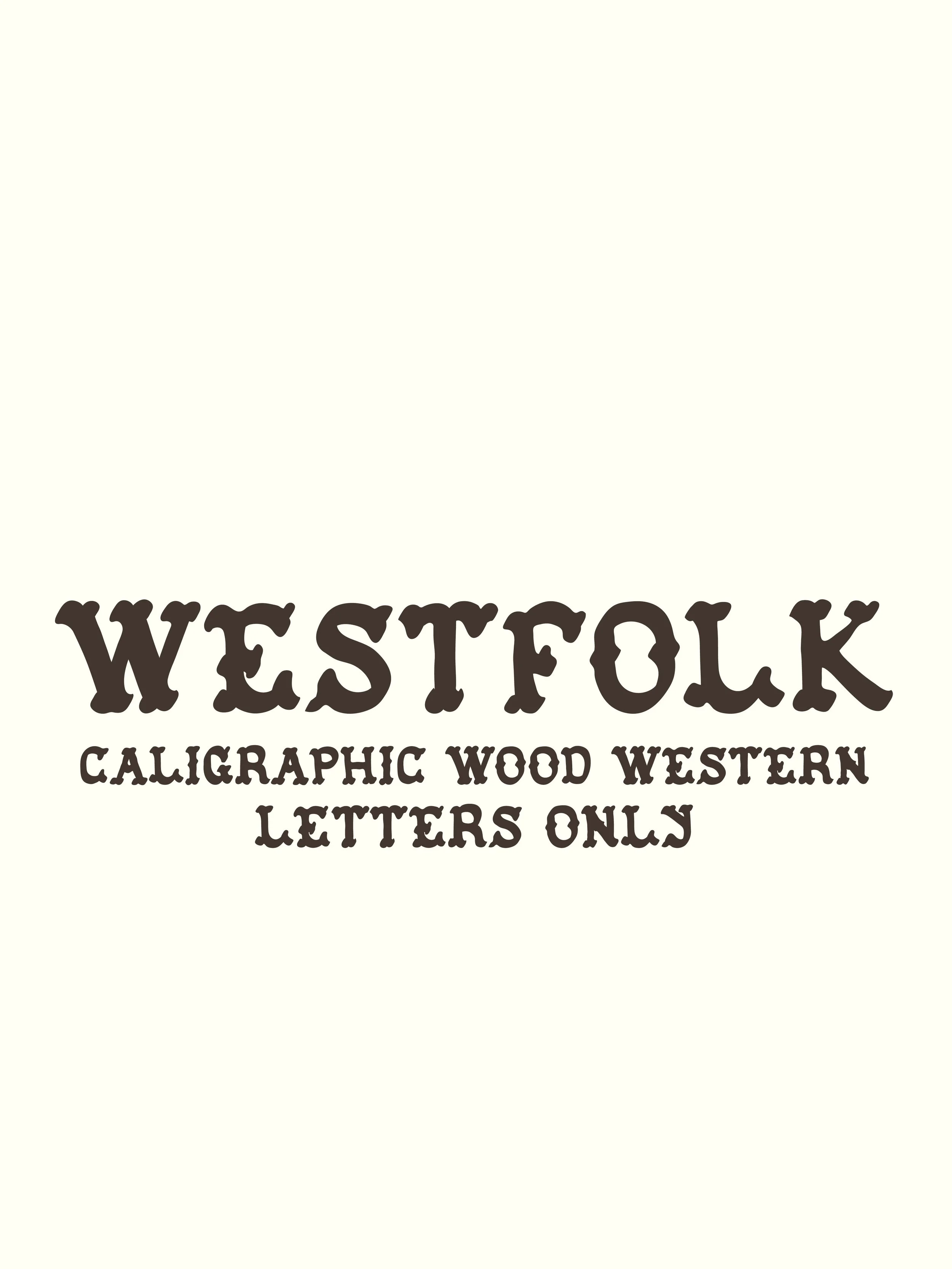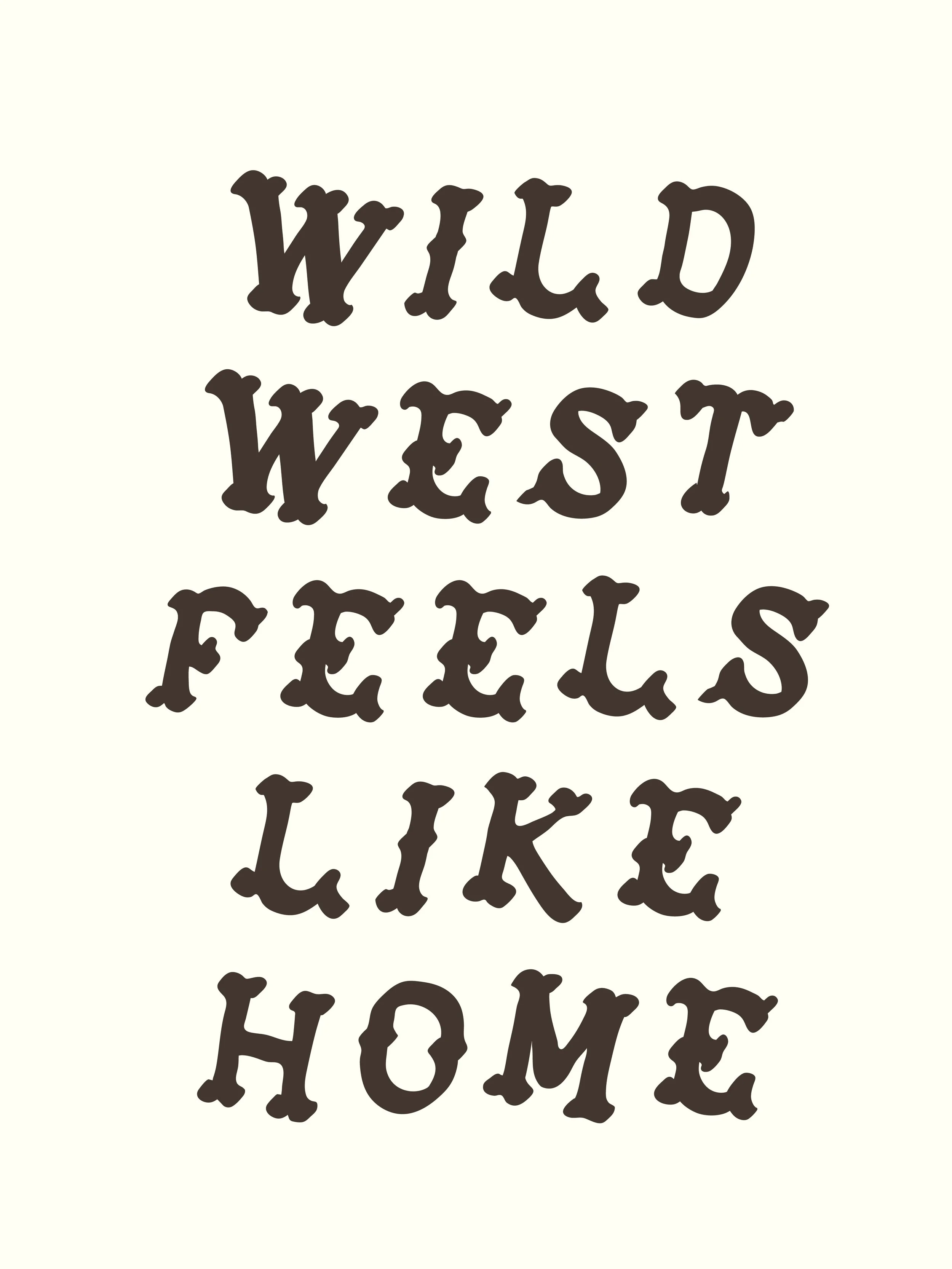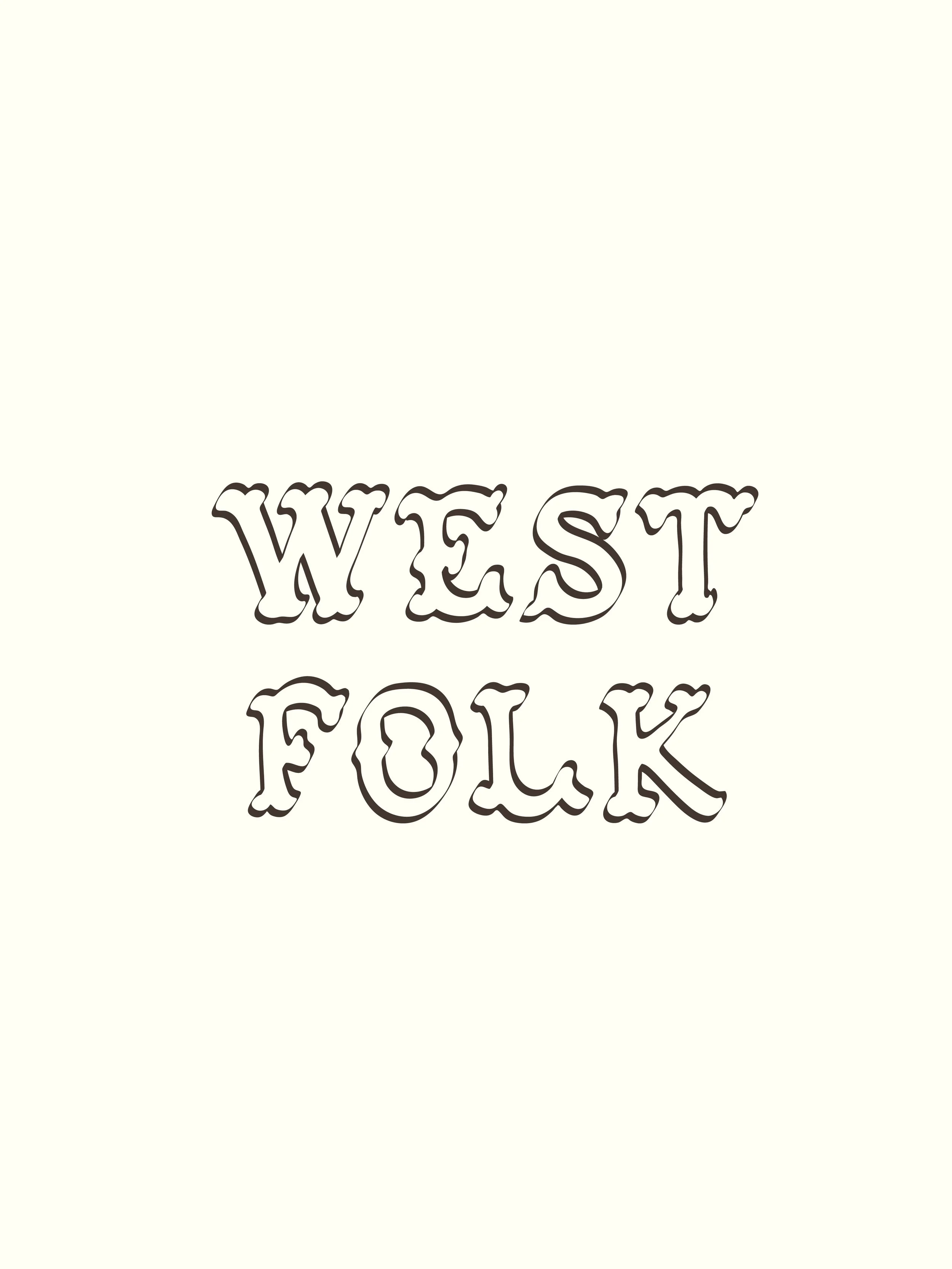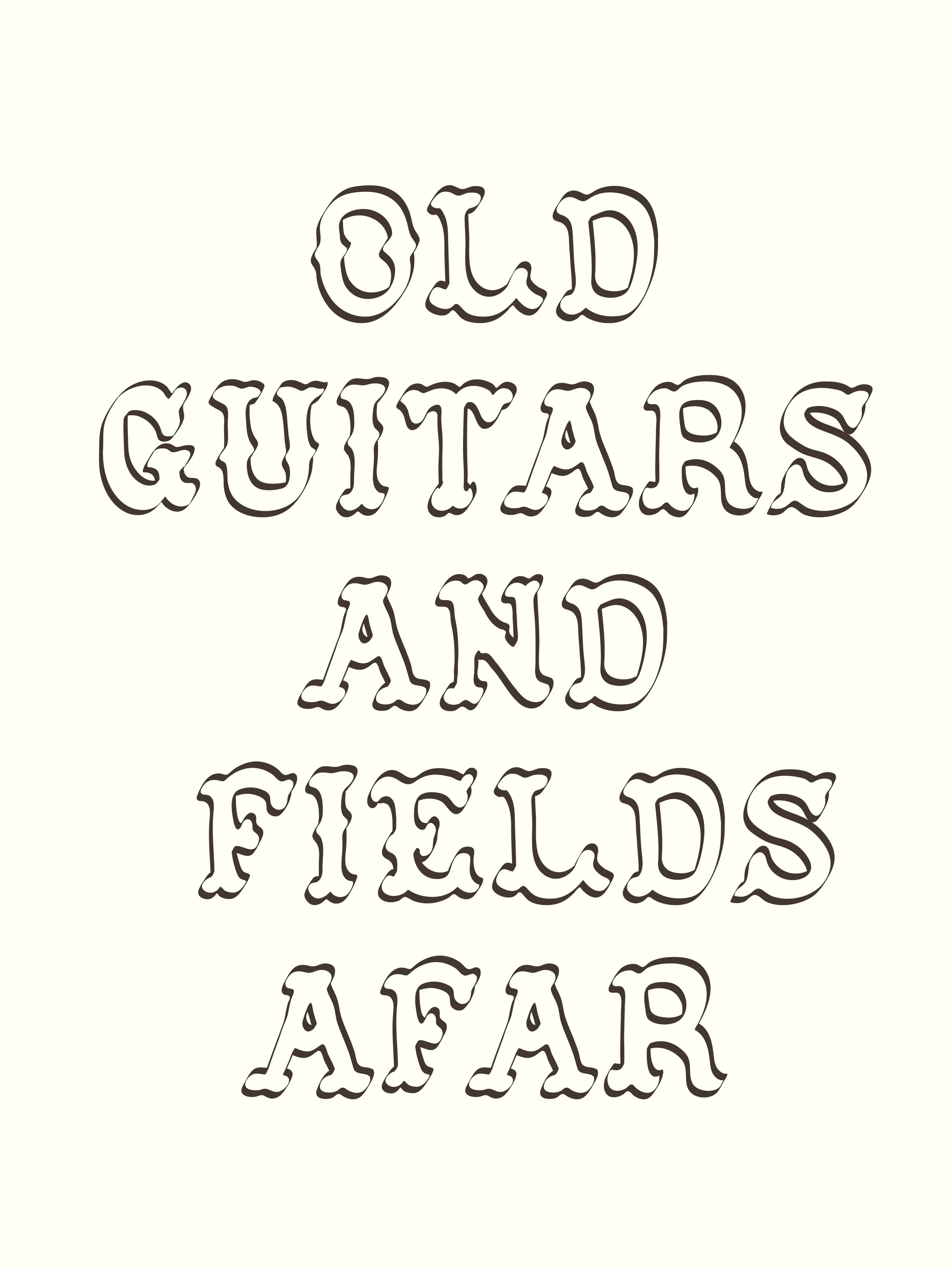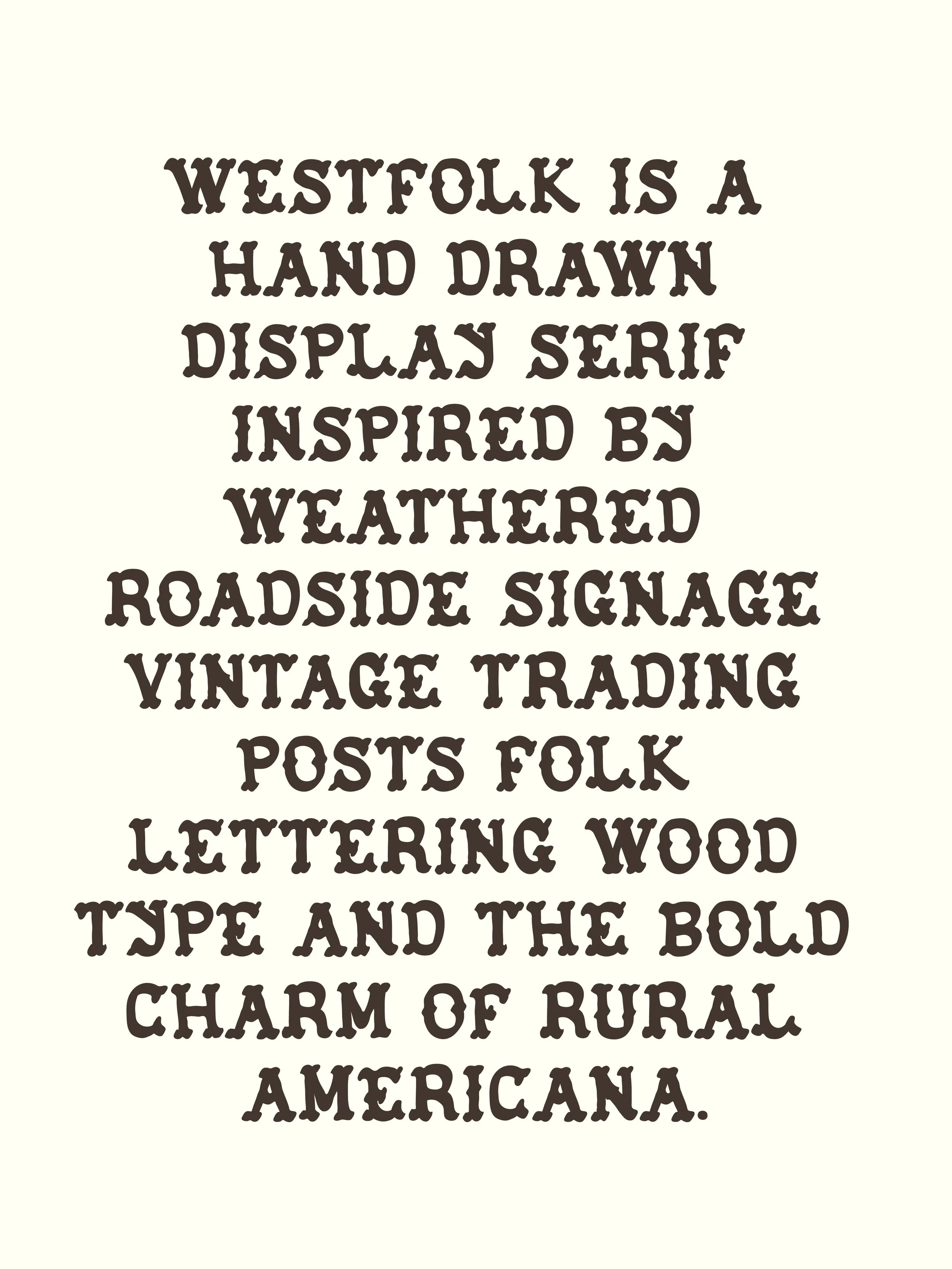
WestFolk | Hand Crafted Font
WESTFOLK is a hand-drawn display serif inspired by vintage Western wood type, weathered trading posts, roadside Americana and the warm, imperfect lettering found on old country stores, ranch signs and handmade print. Embracing soft slab serifs, uneven curves and the subtle inconsistencies that give analogue lettering its enduring charm.
Built with bold, rounded forms and a distinctly human rhythm, WESTFOLK celebrates imperfection. Rather than striving for digital precision, each character carries its own unique weight and personality, creating a typeface that feels nostalgic, tactile and full of warmth.
Designed as an all-caps display font, WESTFOLK encourages playful typography. The included outline alternate allows you to mix solid and outlined letterforms to create layered headlines, logos and compositions with a handcrafted feel. Whether you're designing for a modern coffee roaster, an outdoor brand or a vintage-inspired poster, WESTFOLK brings an authentic folk character to contemporary design.
Uppercase A–Z — Solid filled letterforms
Lowercase a–z — Matching outlined/calligraphic versions of the uppercase characters
Letters only
No numbers